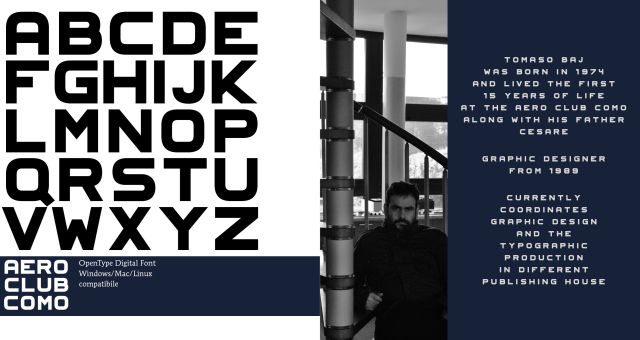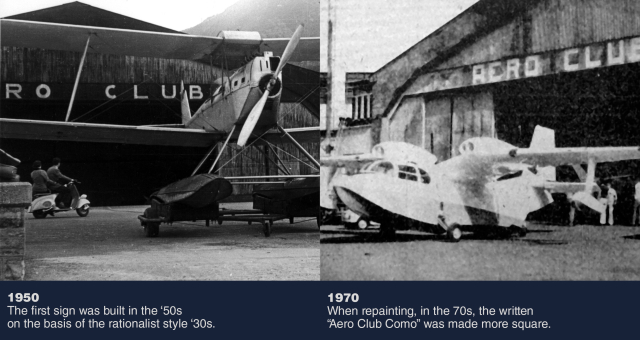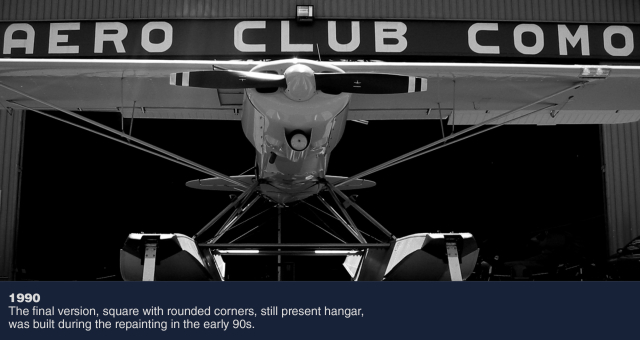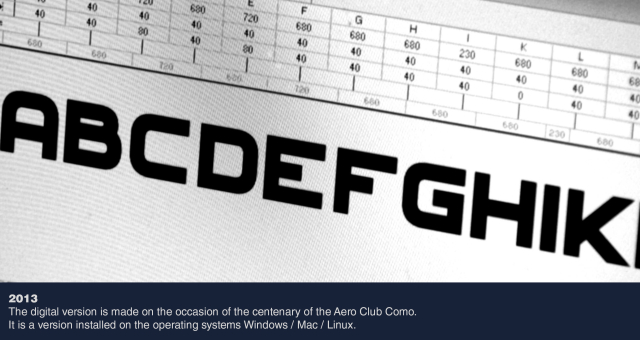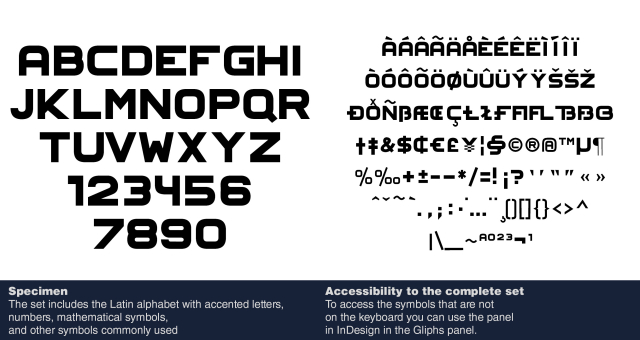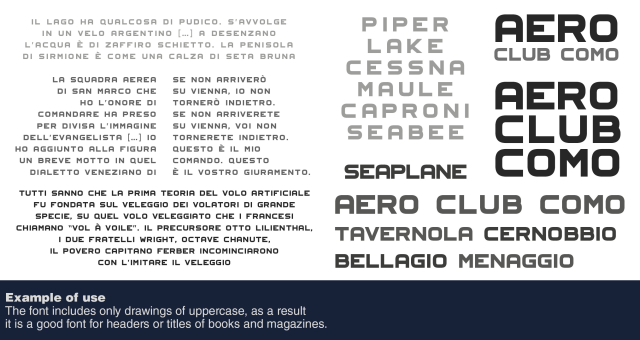
Aero Club Como
Character present on the sign of the oldest airport for seaplanes in the world: The airport Como. The sign was made by an unknown author in the '50s in the style of rationalist architecture who worked in the city of Como.
Designer: Tomaso Typo Baj
Publisher: Tomaso Typo Baj